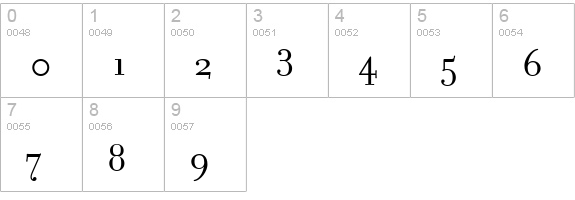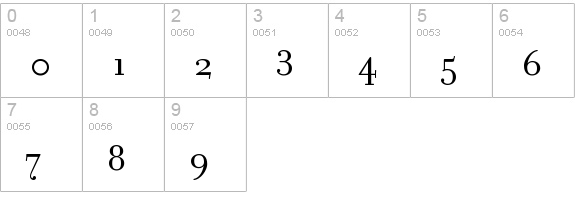
Filosofia Font Details
Filosofia font is a timeless and elegant typeface that exudes sophistication and style. Its graceful curves and classic proportions make it a versatile choice for a wide range of design projects, from branding to editorial design. The Filosofia font is renowned for its clarity and readability, making it a popular choice among designers and typographers alike. What sets Filosofia font apart is not just its timeless design, but also its availability. This exquisite font is freely available to download at FontsMarket.com, allowing designers to access its beauty and versatility without any constraints. Whether you're working on a print project or a digital design, Filosofia font is sure to elevate your work with its refined aesthetic and exceptional quality.